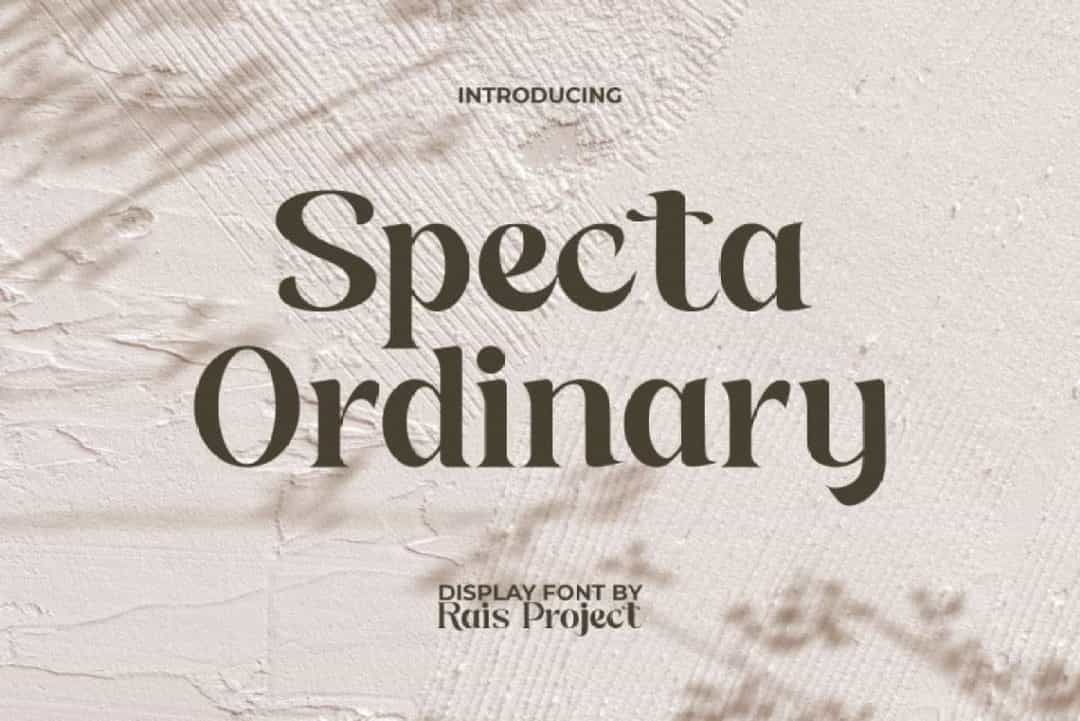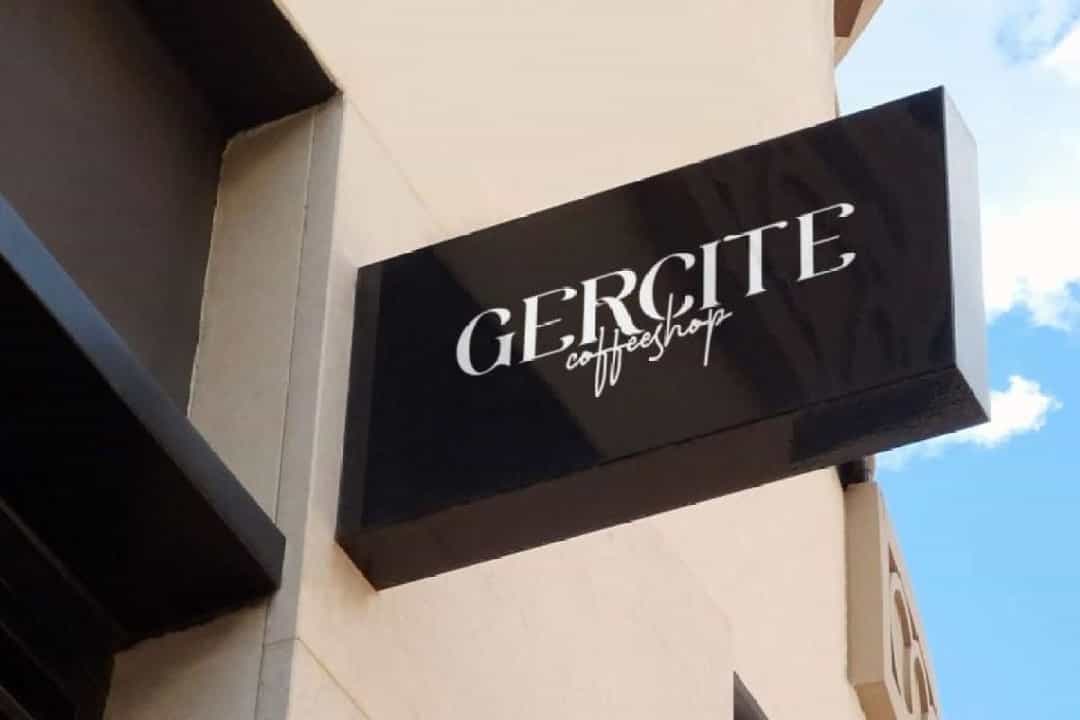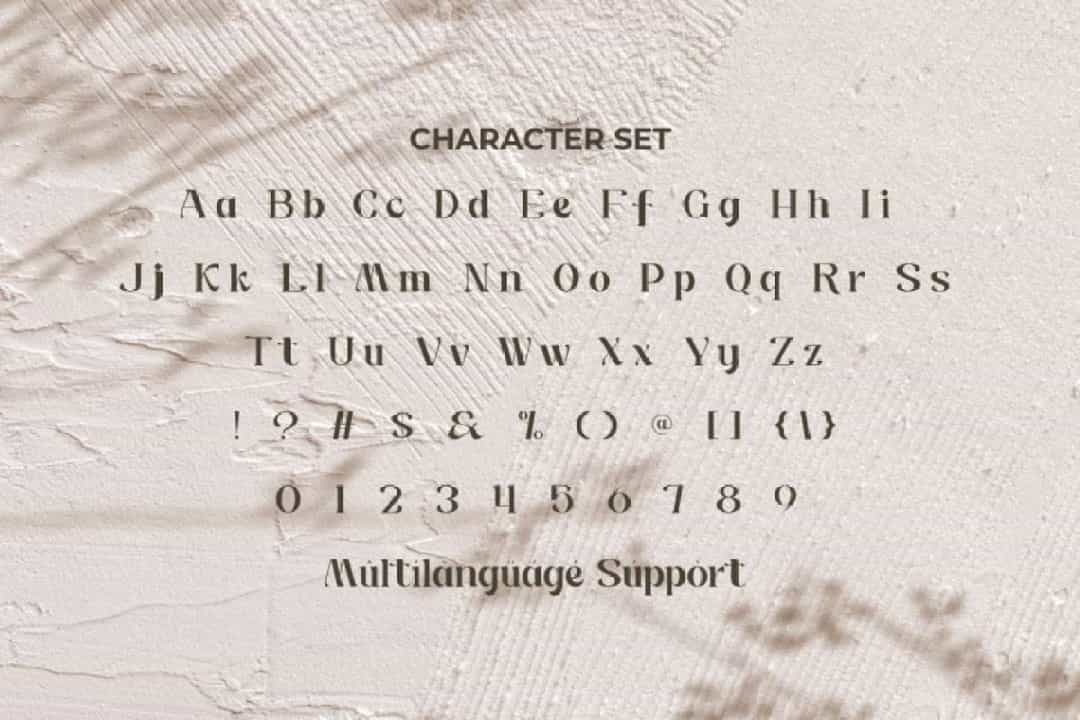
“Specta Ordinary” Font is a gorgeous serif-style font. The small waves at the top of each letter creates an adorable retro aesthetic. Perfect for logos for brand or business card, covers, custom designed invitation labels, magazine menus, posters packaging for products as well as signage websites and much more!